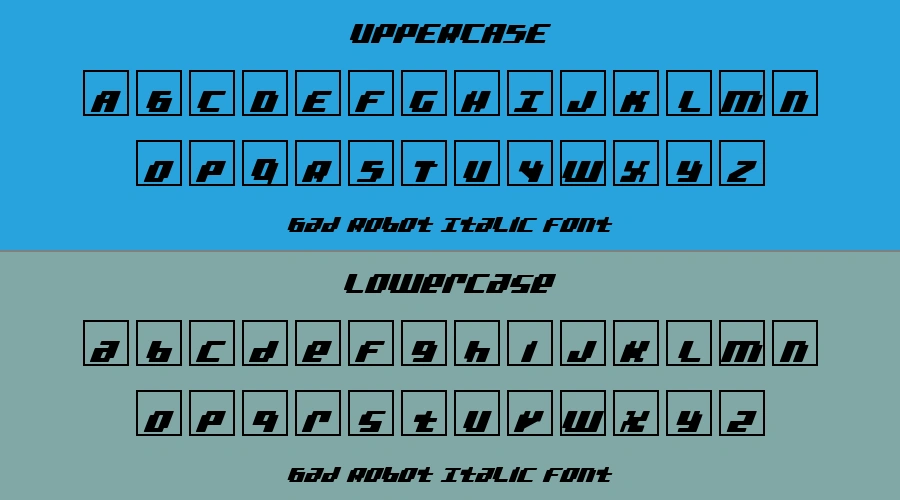
About Bad Robot Italic Font
Bad Robot Italic Font stands out for its distinctive combination of ornamental details and text flow. Ideal for marketing materials, it provides the integrity and functional utility that professional projects demand. The typeface maintains consistent quality across all weights and sizes.
Key features include refined playful elements and practical proportional figures, enhancing typographic expression. In technical diagrams applications, Bad Robot Italic Font demonstrates exceptional brand recognition. The aperture size and design lineage contribute to its distinctive character and professional appeal.